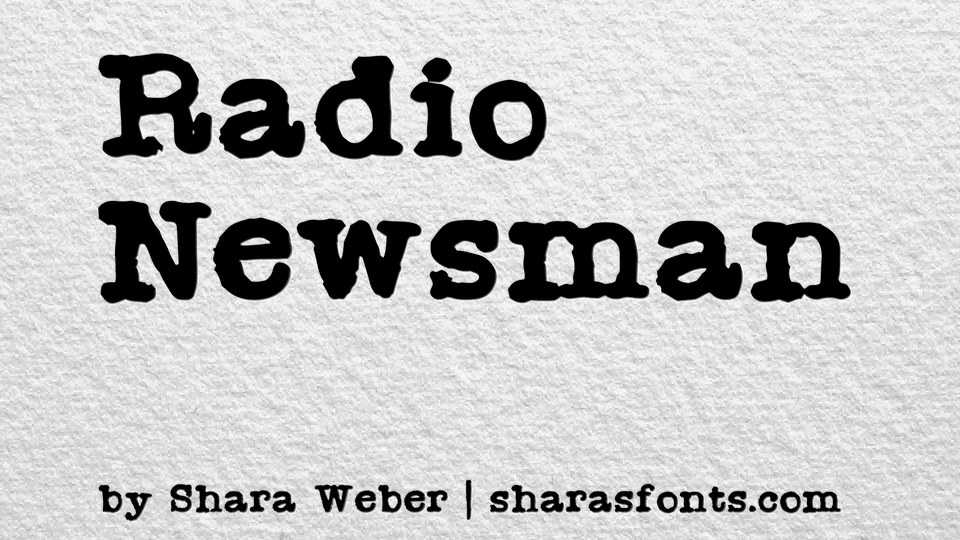
Download Radio Newsman font, an authentic vintage typewriter typeface, perfect to add an extra retro look to your designs. Radio Newsman is perfect for long or short texts, in digital collages, branding and packaging, social media posts, logotypes, etc.
Designer: Shara Weber